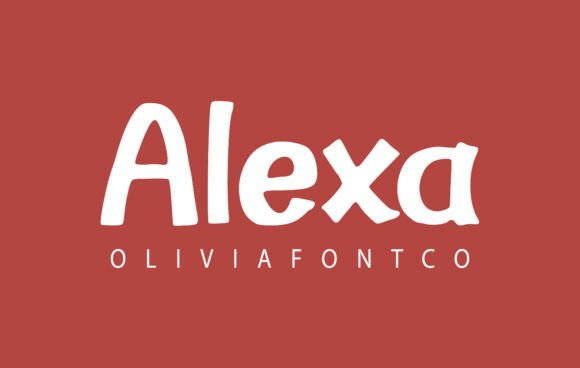
The Alexa Font: A Romantic Touch for Your Creative Projects
I’ll never forget the time I was working on a wedding invitation design for a dear friend. I had the perfect layout, the ideal color palette, and a clear vision of what I wanted to achieve. However, I was struggling to find the right font. I scrolled through page after page of Google Fonts, but nothing seemed quite right. That was when I stumbled upon the Alexa font. With its elegant, handwritten touch, it instantly captured the romantic essence of the occasion. I knew right then and there that I had found my perfect match.
An Honest Review of Alexa Font
- ✨ Authentic Handwritten Feel: The Alexa font boasts a genuine, handcrafted look that adds a personal touch to any design.
- ✅ Legibility: Despite its elegant nature, the font remains highly legible, making it perfect for both title and body text.
- 💫 Romantic Touch: The font’s romantic undertones make it ideal for designs that require a touch of elegance and sophistication.
- 🎨 Versatility: From magazine headlines to social media posts, wedding invitations, and more, the Alexa font can elevate a wide range of creative projects.
While the Alexa font is incredibly versatile and beautiful, there are a few minor considerations to keep in mind:
- ⚠️ Overuse: As with any elegant font, there’s a risk of overusing it. Make sure to balance it with other design elements to keep your project visually interesting.
- 🤔 Readability at Small Sizes: While generally legible, the font might become a bit tricky to read at very small sizes. It’s best used at sizes that allow its beauty to shine.
The Story Behind Alexa Font
While the exact origins of the Alexa font might be shrouded in mystery, it’s clear that it was designed with love and a deep understanding of typography. The creator’s goal was to craft a font that would bring a touch of romance and elegance to any project, and it’s evident that they’ve succeeded.
Q: Is Alexa Font Suitable for Body Text?
A: Absolutely! While it’s elegant enough for headlines, its legibility makes it suitable for body text as well. However, consider readability at smaller sizes.
Q: Does Alexa Font Support Multiple Languages?
A: Many modern fonts, including scripts like Alexa, offer extended language support. Check the font’s specifications or contact the creator for detailed information.